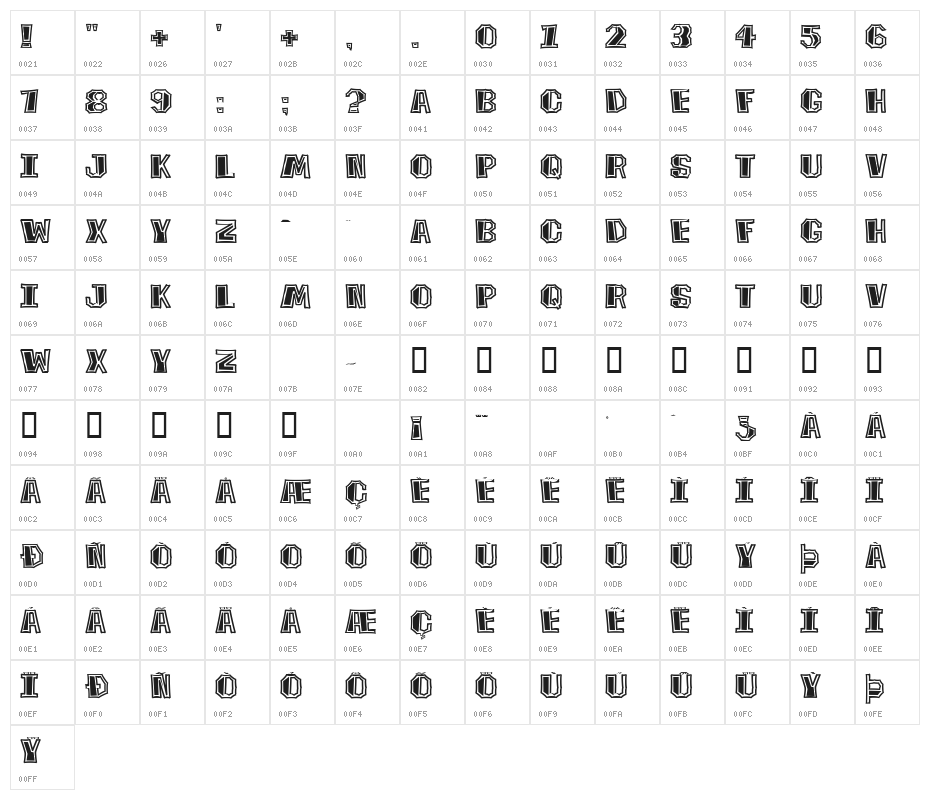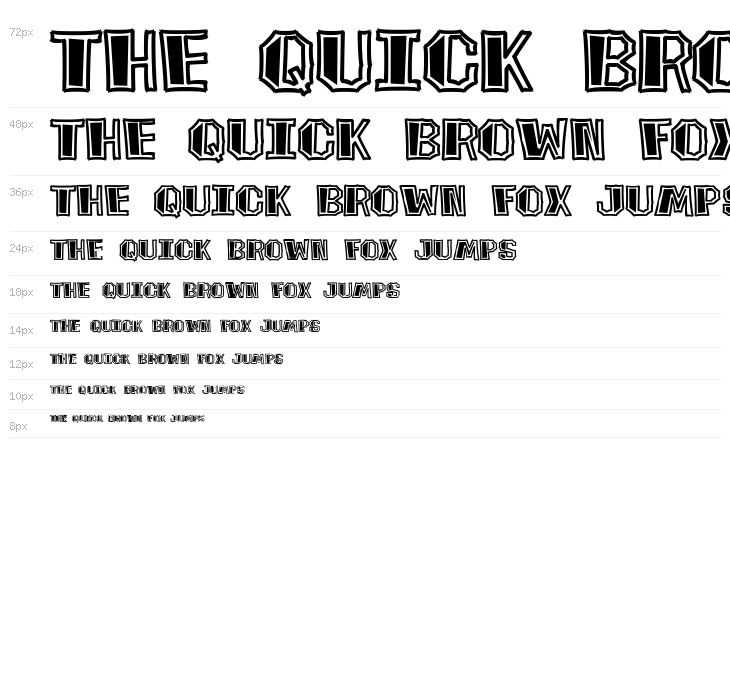
Tiki Tooka BV Font
Tiki Tooka BV Description
This font features a bold, decorative style with a distinct outline that gives each character a three-dimensional appearance. The uppercase letters are angular and robust, with a playful yet structured design. The numbers and special characters maintain this bold aesthetic, ensuring consistency across all elements. The font's unique style makes it stand out, with a strong presence that captures attention. The characters are well-defined, with a medium contrast between the thick outlines and the inner strokes, creating a dynamic visual effect. This font is ideal for projects that require a bold statement or a creative touch.
| Proposed Projects | Ideal for posters, logos, headlines, and any design needing a bold, eye-catching font. |